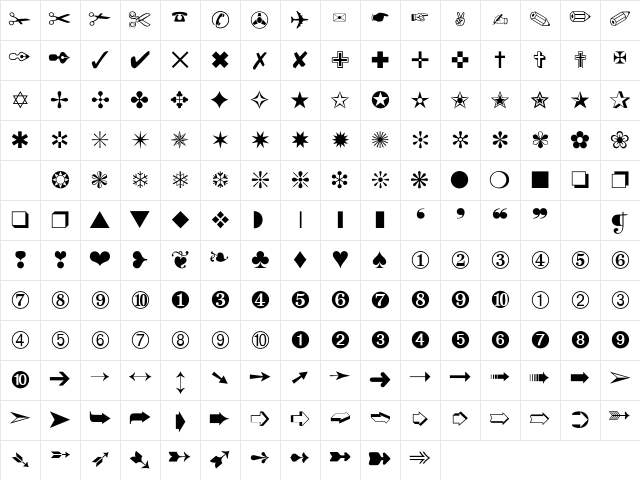
Dixieland Normal Free Font
Dixieland Normal
Dixieland Family
Complete Dixieland Normal glyph index. Displaying only characters natively supported by Dixieland Normal font.
Design Context for Dixieland
Dixieland is a composed and adaptable typeface that performs quietly and consistently across a wide range of design contexts.